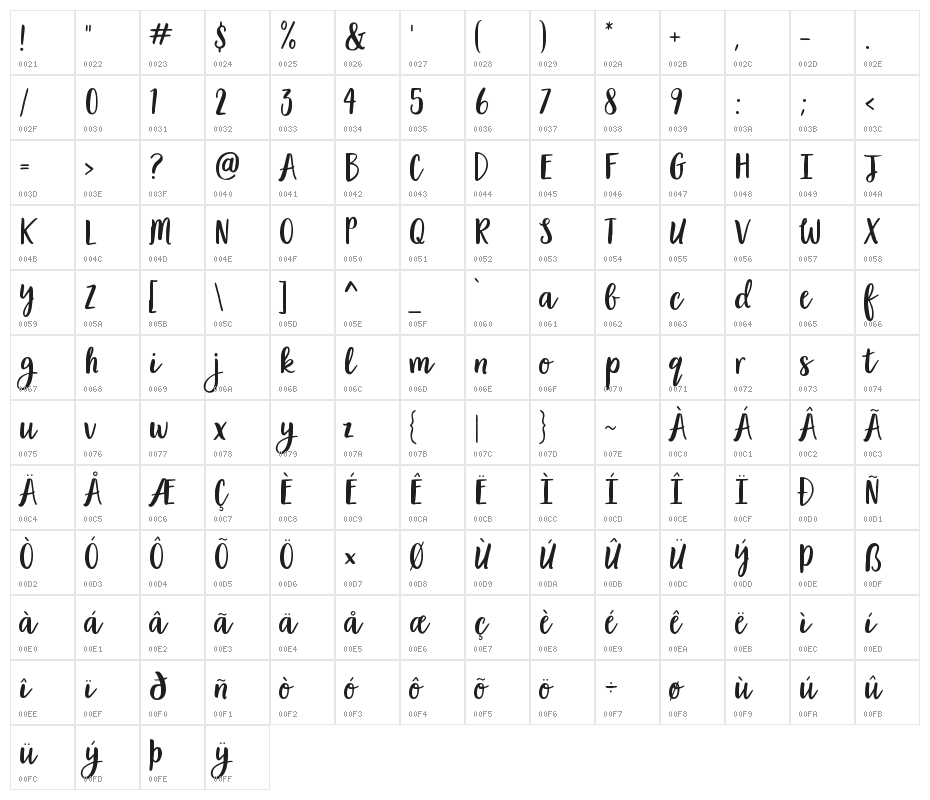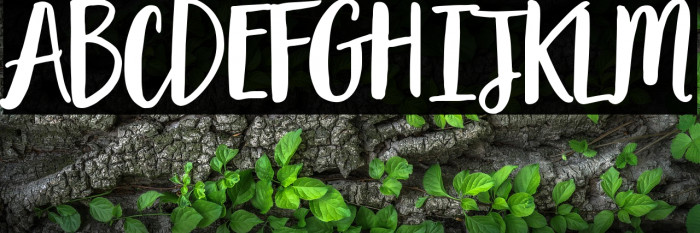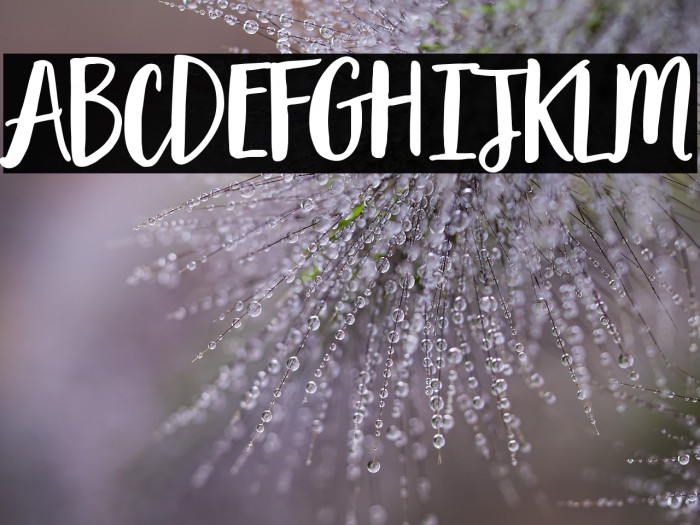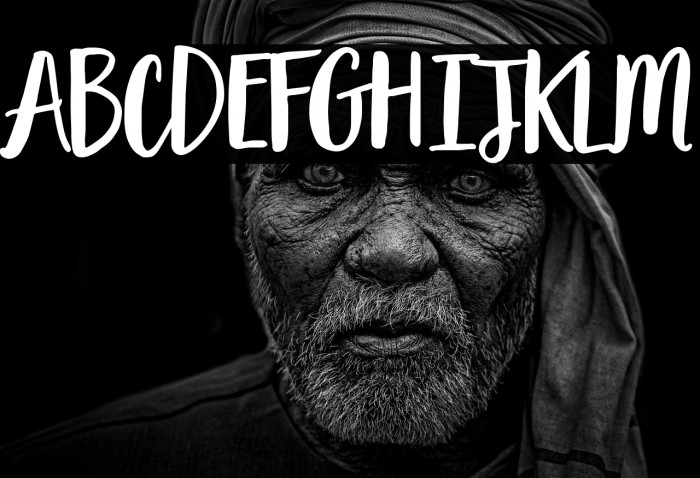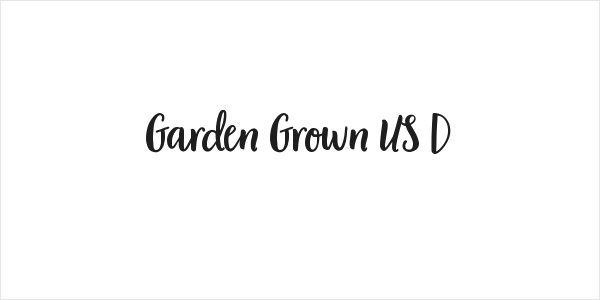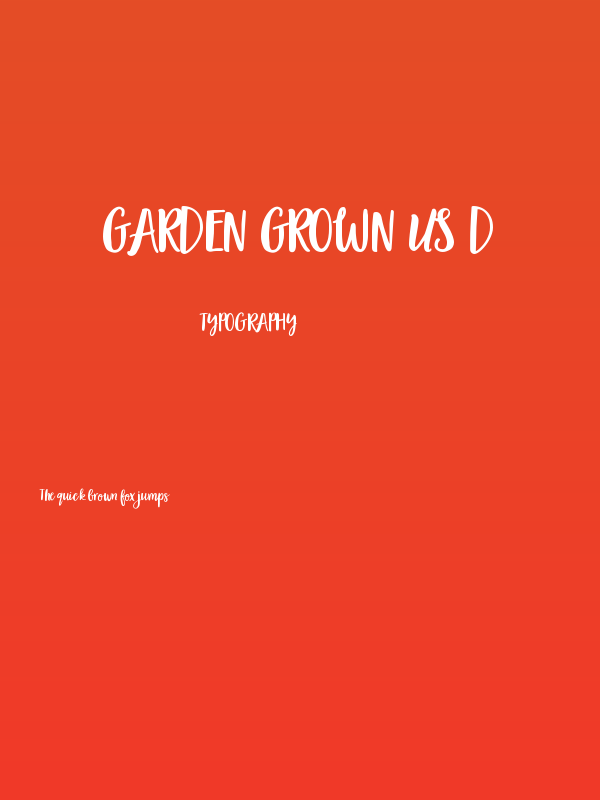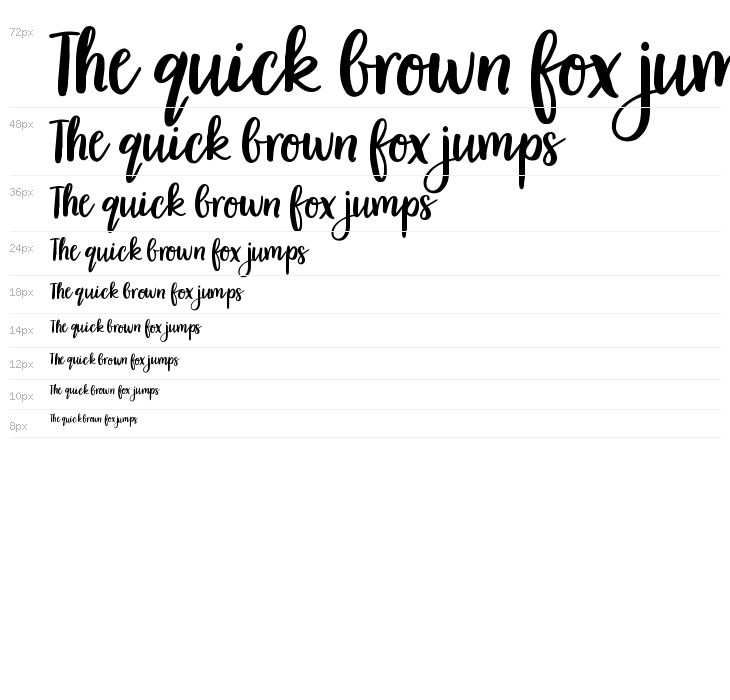
Garden Grown US D Font
Garden Grown US D Description
This font features a lively and expressive handwritten style, characterized by its bold and flowing letterforms. The uppercase letters are tall and slightly narrow, with a playful yet elegant flair, while the lowercase letters exhibit a smooth, cursive quality with distinctive loops and curves. The numerals are consistent with the overall style, maintaining the same boldness and fluidity. Special characters are creatively integrated, adding to the font's dynamic appearance. The overall impression is one of energy and creativity, making it suitable for projects that require a personal and artistic touch.
| Proposed Projects | Ideal for greeting cards, invitations, branding, and social media graphics. |